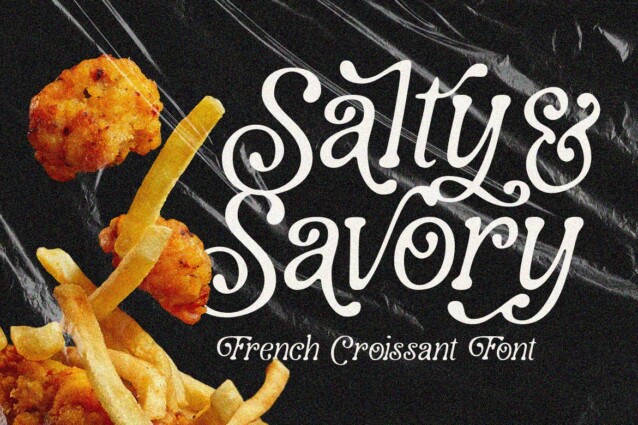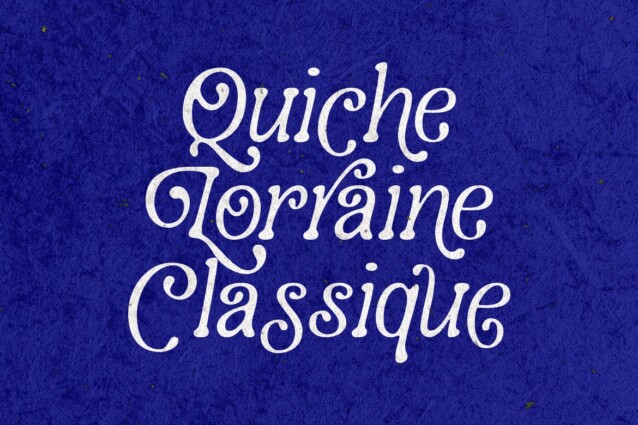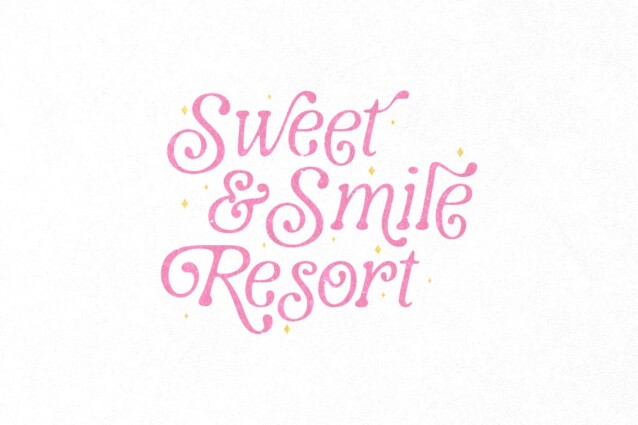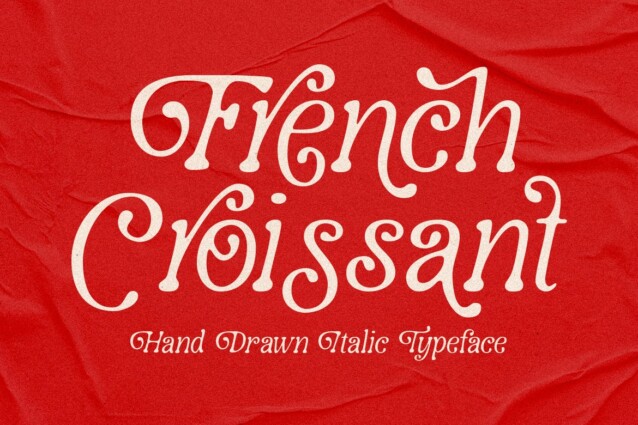
French Croissant Font
French Croissant Font is a serif display font designed by Prioritype Co with surrealist sensibilities. This font is hand-drawn with an italic style and is characteristic of various types of letter styles. Very suitable for branding designs, logos, posters, merchandise and more. Grab it to start your Type Game!